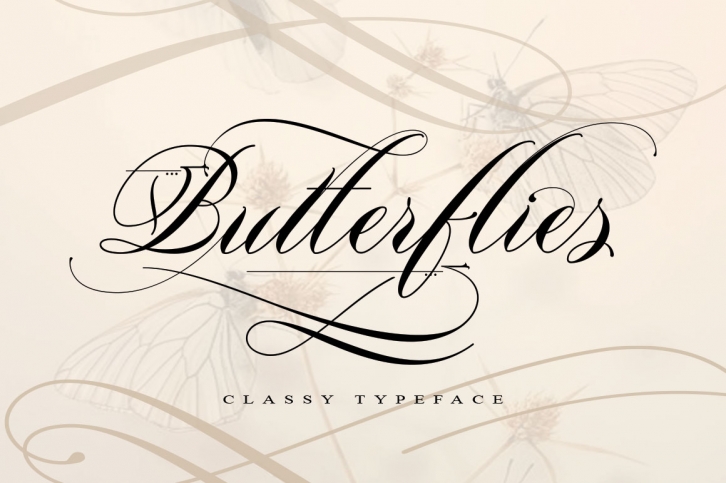
Butterflies is a trendy and unique font with an authentic style. It was designed by BeeArt and it's a great choice for creative people who need such a font. It was released on June 30, 2017 and the file size is 21.53 MB. Butterflies will add an organic vibe to any design idea!